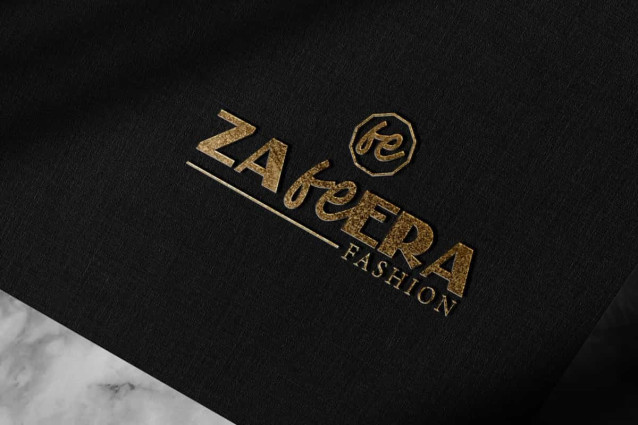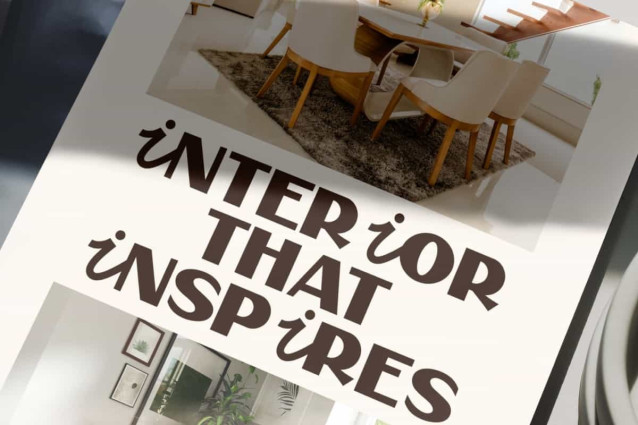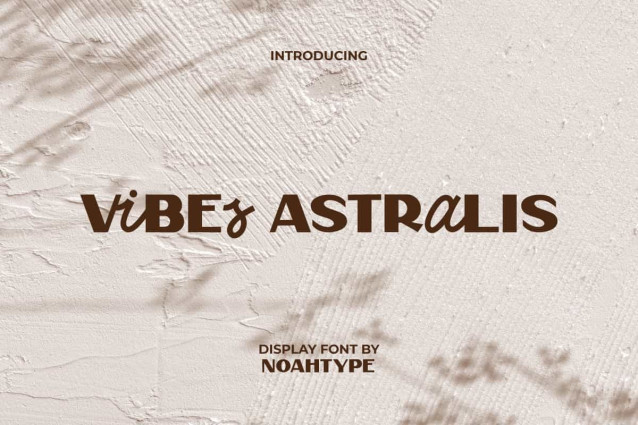
Vibes Astralis Font
Vibes Astralis Font is a display font that has a combination of two font types for a unique look. This font consists of Script and Sans Serif styles so it can be adapted to any type of design. It will be good for brand image, cover, custom design, invitation, label, marketing material, menu, poster, product packaging, quotes, signage, stationery, web, and many more!
Vibes Astralis Font includes a complete set of Uppercase and Lowercase Basic Characters with different looks for both, Numerals, Punctuation, and Symbol. The characters of this font will give beautiful touch and also a perfect choice for many industries, such as fashion, accessories, advertising, art, cafe, event or festival, movie, photography, printing, publishing, etc.